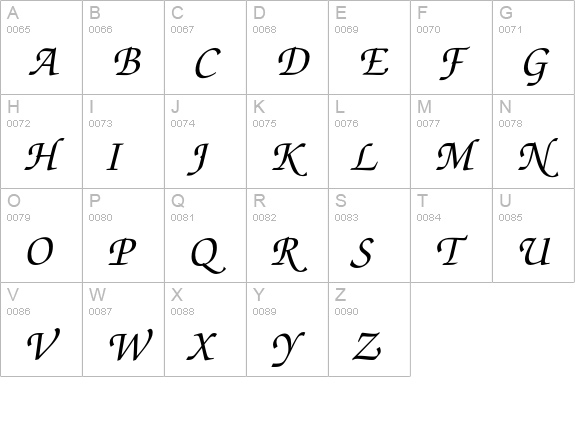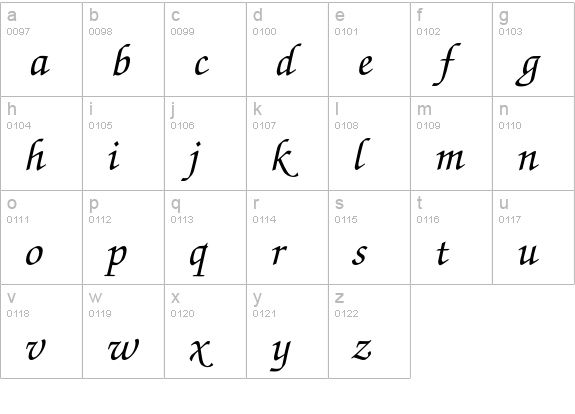
ZapfChanceryEF-MediumIta Font Details
ZapfChanceryEF-MediumIta is a graceful and elegant italic font that exudes sophistication and charm. With its flowing lines and classic style, this font is perfect for adding a touch of elegance to any design project. Whether you are designing invitations, announcements, or other creative works, ZapfChanceryEF-MediumIta will elevate your work to the next level. The best part is that ZapfChanceryEF-MediumIta is available for free download at FontsMarket.com. You can easily access this beautiful font and use it in your projects without any cost. Don't miss the opportunity to add this exquisite font to your collection and enhance your designs with its timeless appeal. Download ZapfChanceryEF-MediumIta today and let your creativity shine!